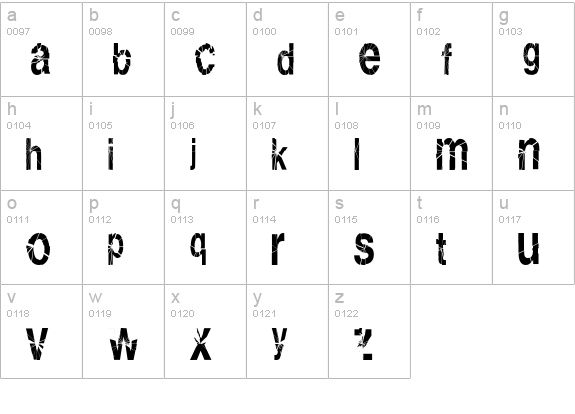
Shatterboxx Font Details
Introducing Shatterboxx font, a stunning display typeface that is designed to captivate and mesmerize. With its bold and dynamic letterforms, Shatterboxx font commands attention and adds a touch of modernity to any design project. This font is more than just a typographic masterpiece; it is a creative tool that allows you to break free from conventional design norms and explore new possibilities. The sharp edges and shattered contours of each letter create a sense of energy and movement, making Shatterboxx font perfect for eye-catching headlines, logos, posters, and more. But what sets Shatterboxx font apart is not just its striking aesthetics, but also its accessibility. We believe that creativity should be free, and that is why Shatterboxx font is freely available to download at FontsMarket.com. Whether you are a professional designer or a passionate hobbyist, you can now unlock the full potential of your creativity without any obstacles. So, why wait? Embark on a journey of artistic expression with Shatterboxx font and let your designs shatter expectations. Download it today at FontsMarket.com and experience the power of free creativity.